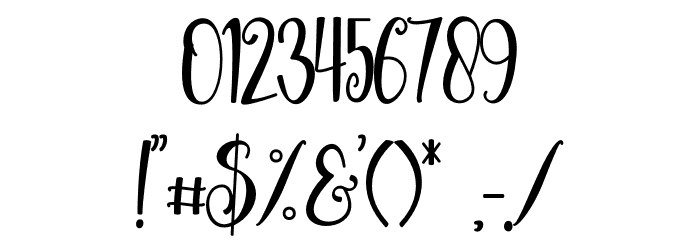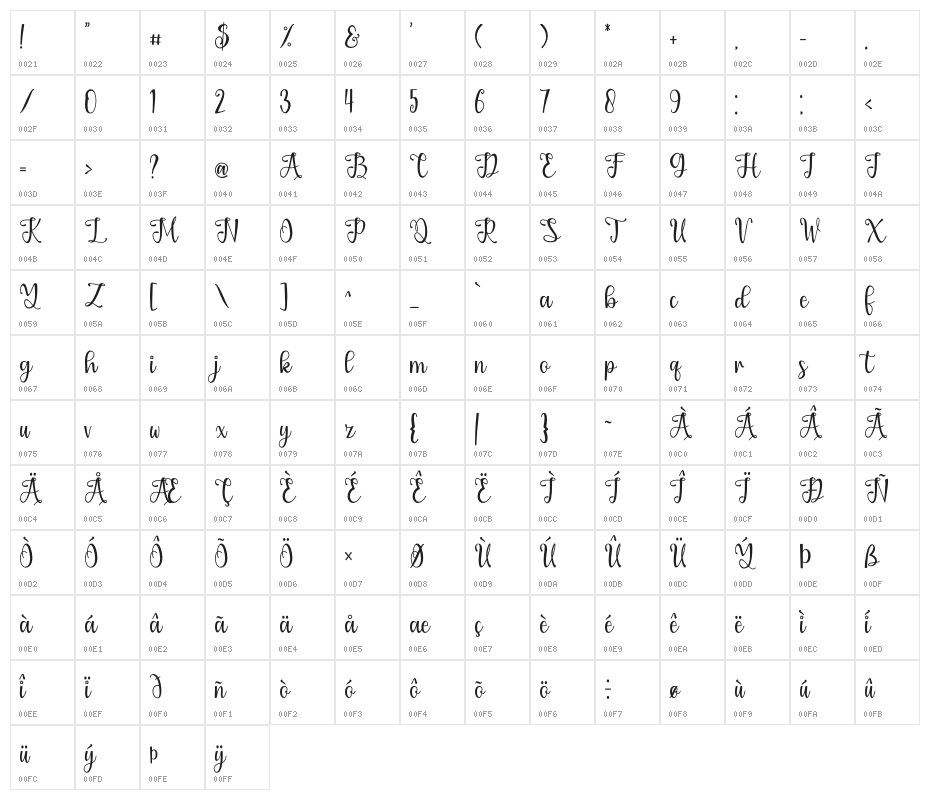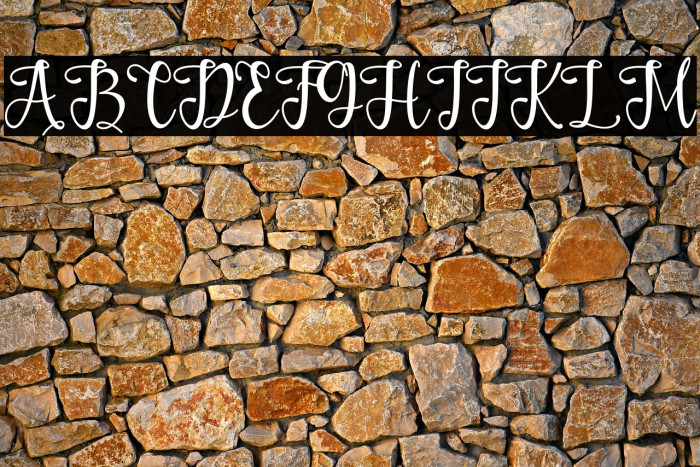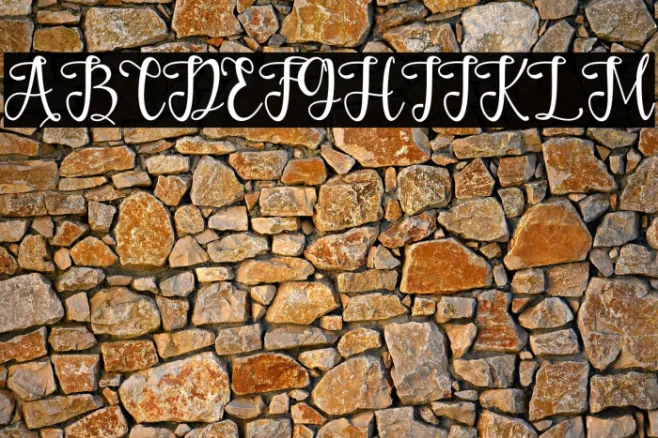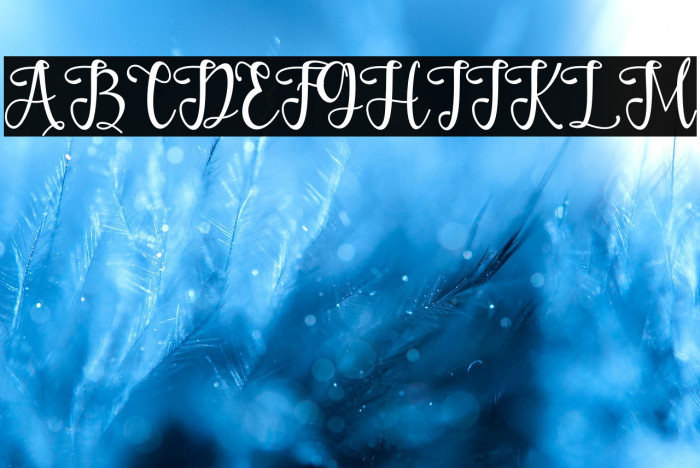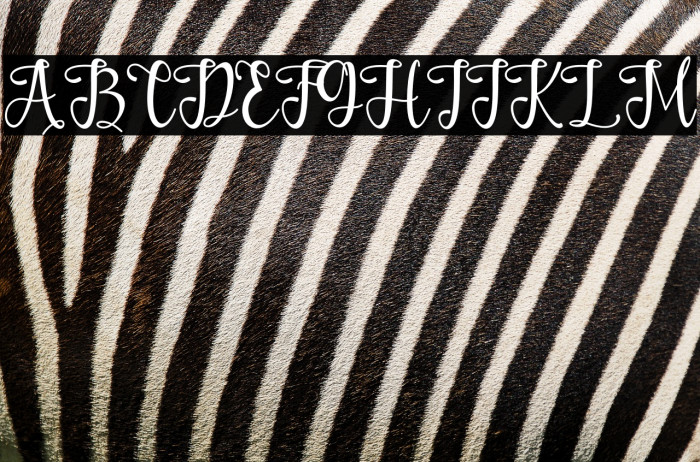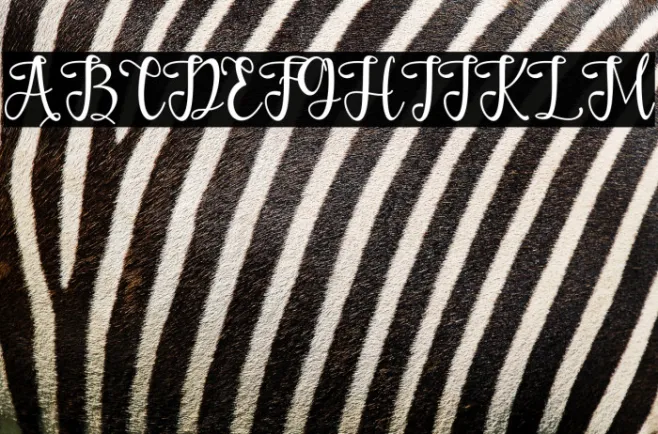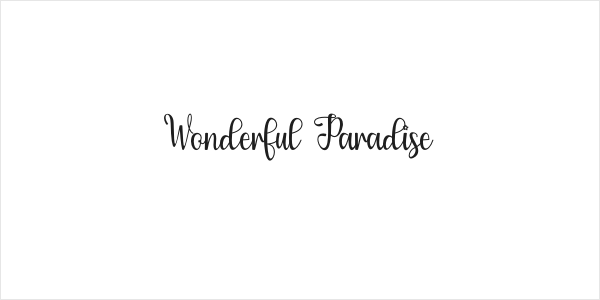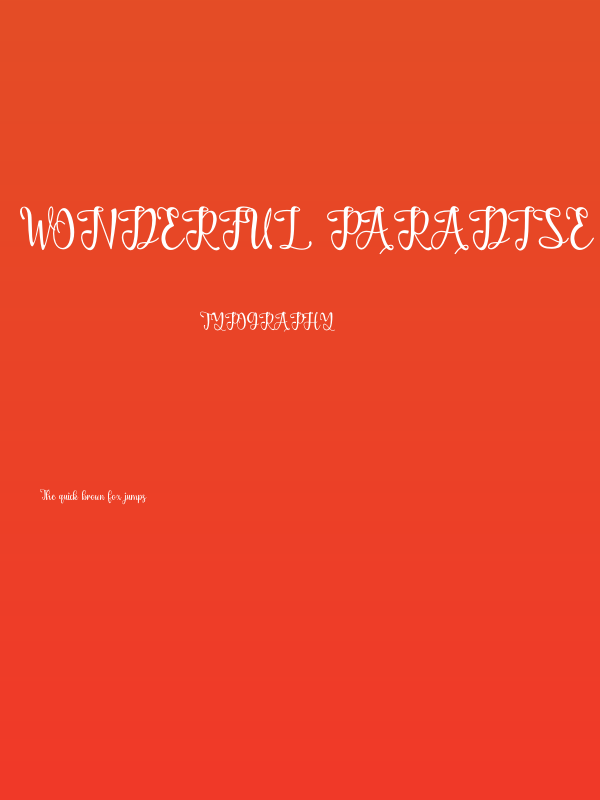
Wonderful Paradise Font
Wonderful Paradise Description
This font exudes a playful and whimsical charm, characterized by its flowing, cursive style. The uppercase letters are elegantly looped, with a consistent stroke that adds a touch of sophistication. The lowercase letters maintain a harmonious balance, featuring gentle curves and a slightly bouncy baseline that enhances its friendly appearance. Numbers and special characters are crafted with the same attention to detail, ensuring a cohesive look across all glyphs. The font's overall design is both decorative and legible, making it suitable for a variety of creative applications.
| Proposed Projects | Ideal for wedding invitations, greeting cards, branding, and playful logos. |